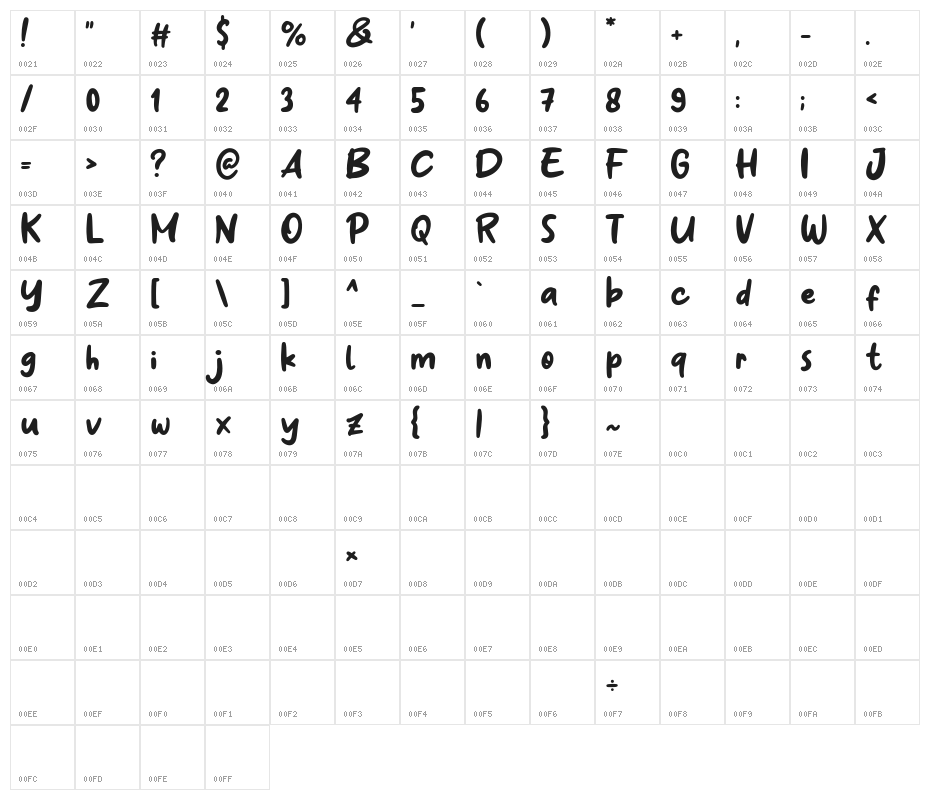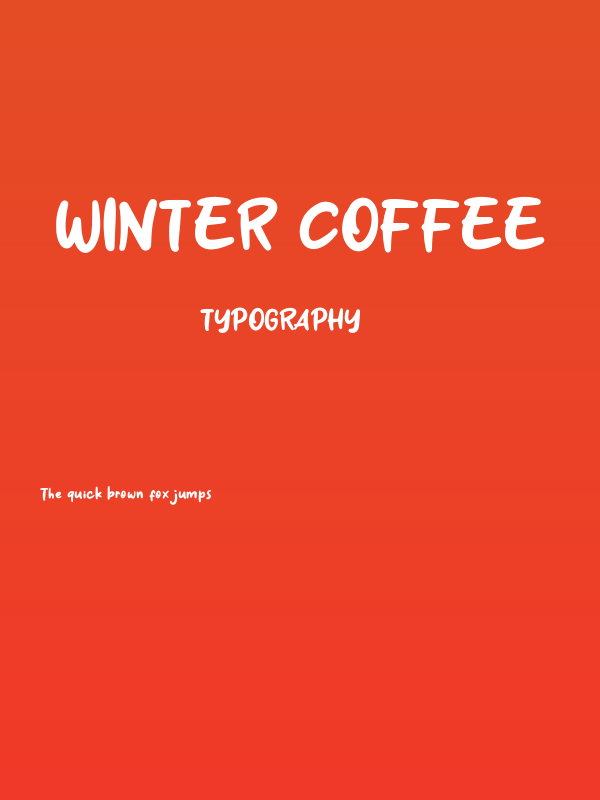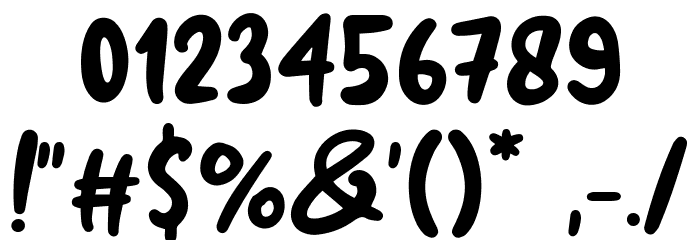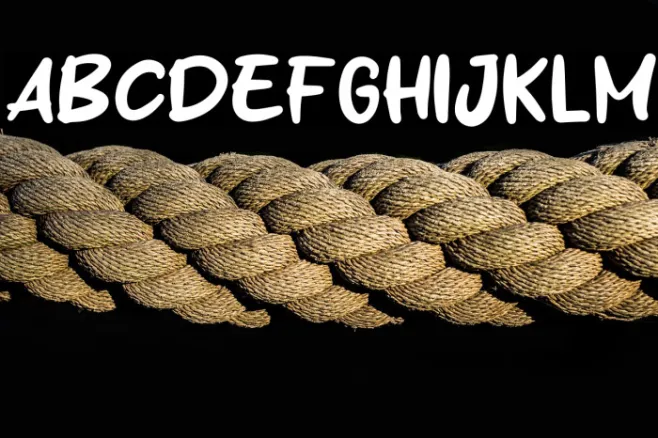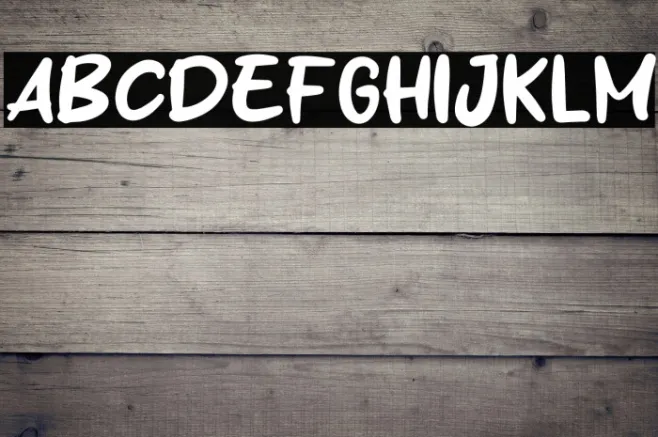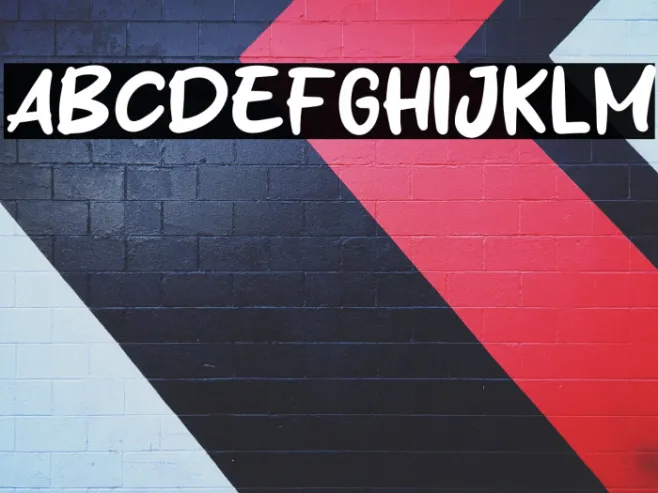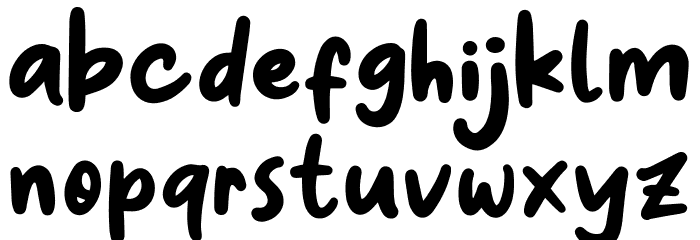
Winter Coffee Font
Winter Coffee Description
This font exhibits a playful and casual handwritten style, characterized by its bold and slightly irregular strokes. The letters have a dynamic flow, with rounded edges and a consistent thickness throughout, giving it a friendly and approachable appearance. The uppercase and lowercase letters maintain a cohesive look, while the numbers and special characters complement the overall style. The font's informal nature makes it suitable for projects that aim to convey warmth and personality.